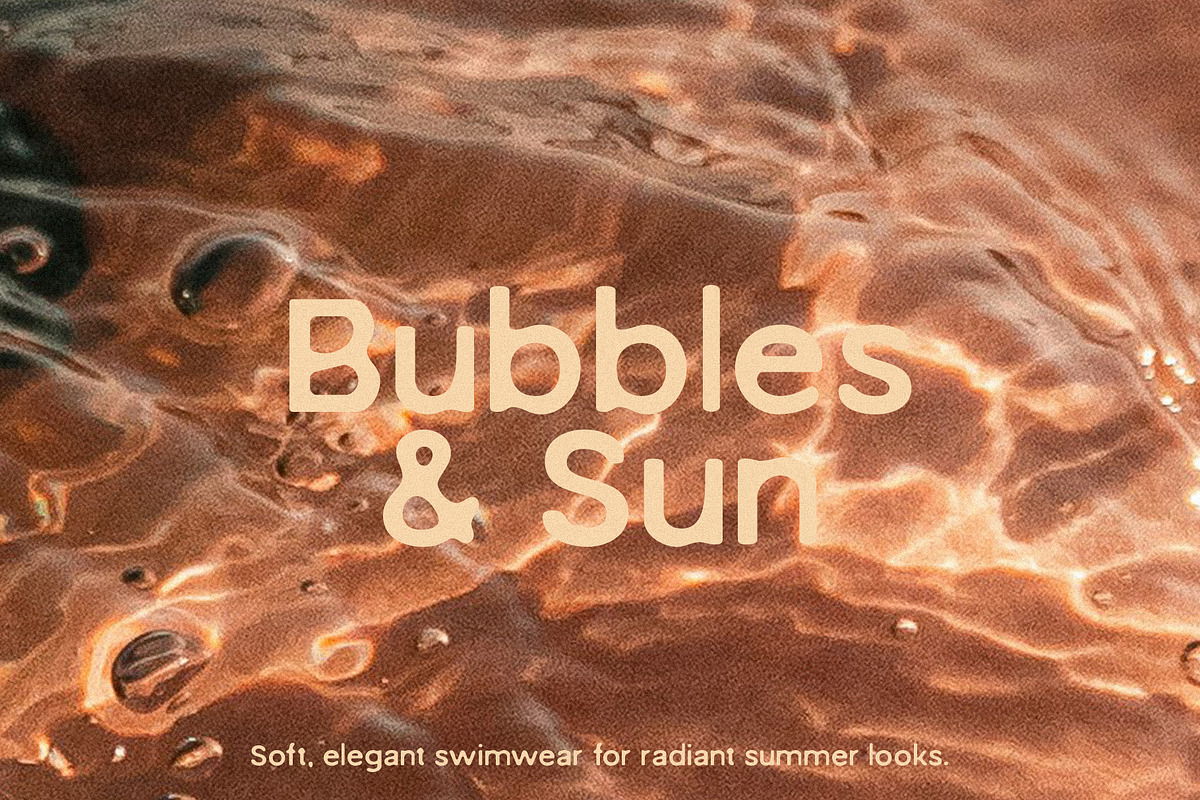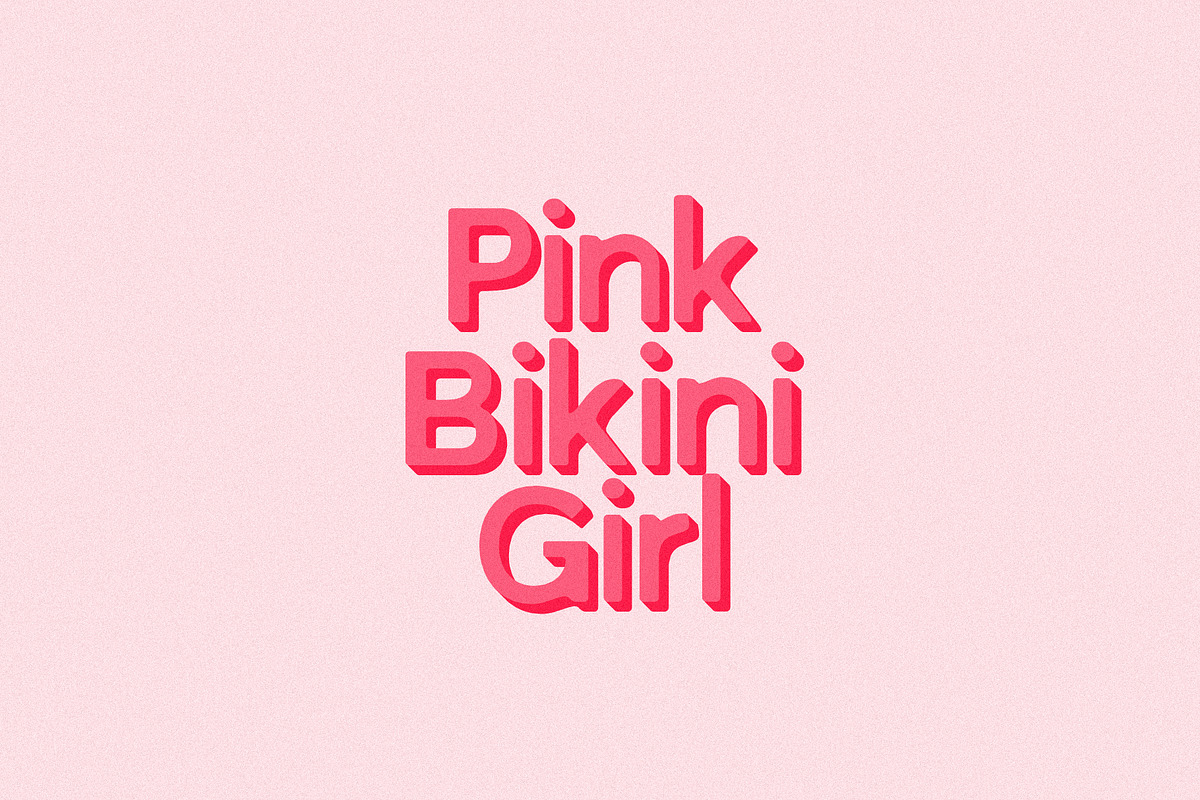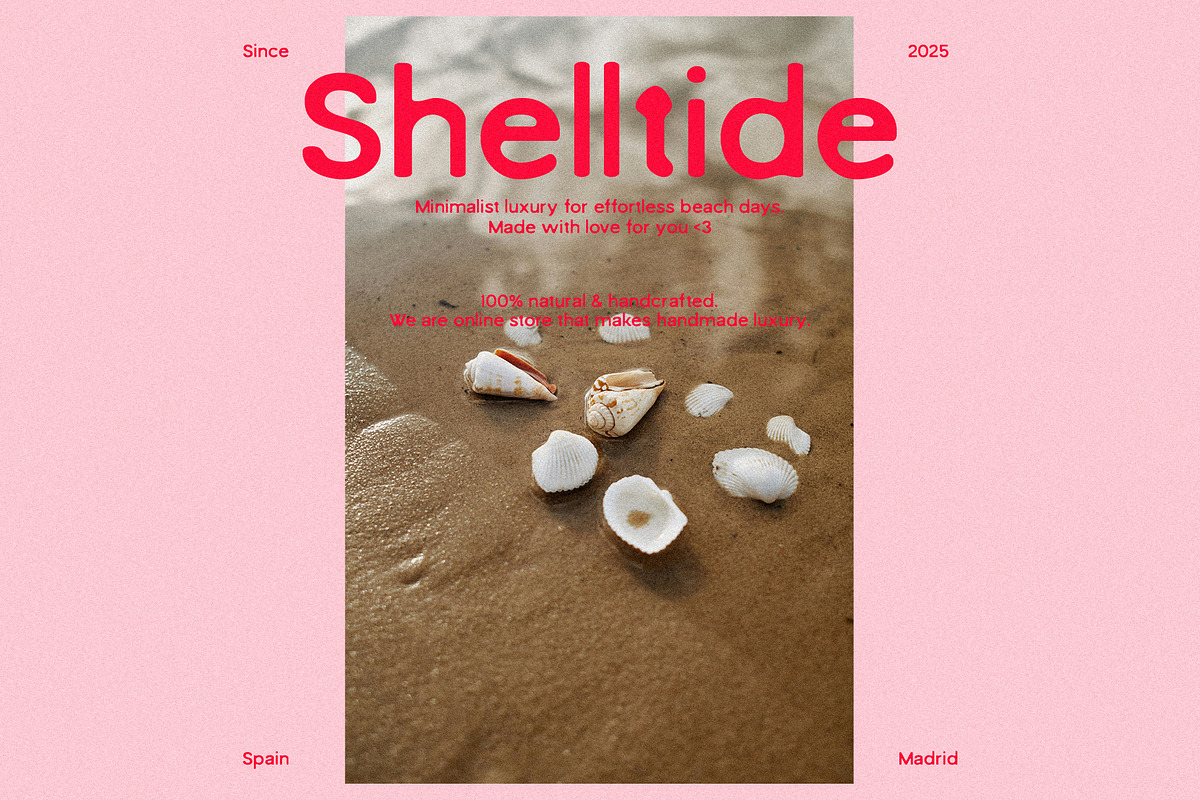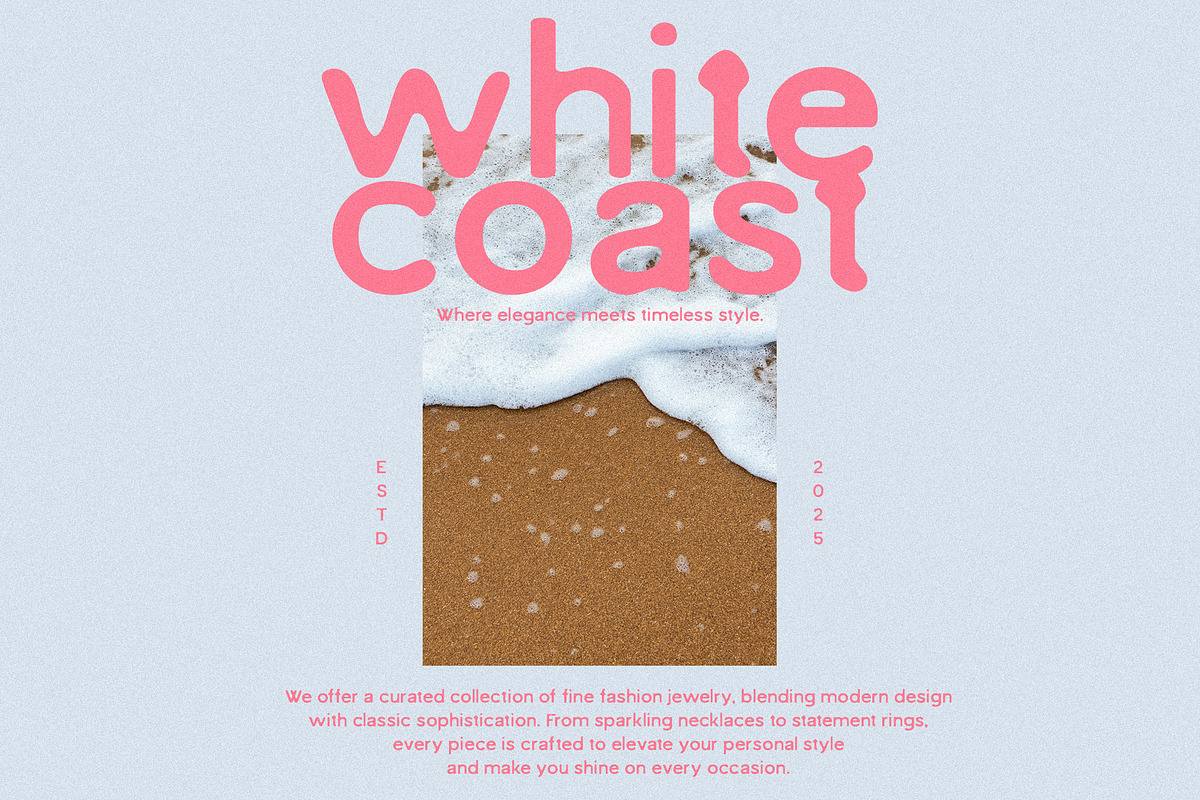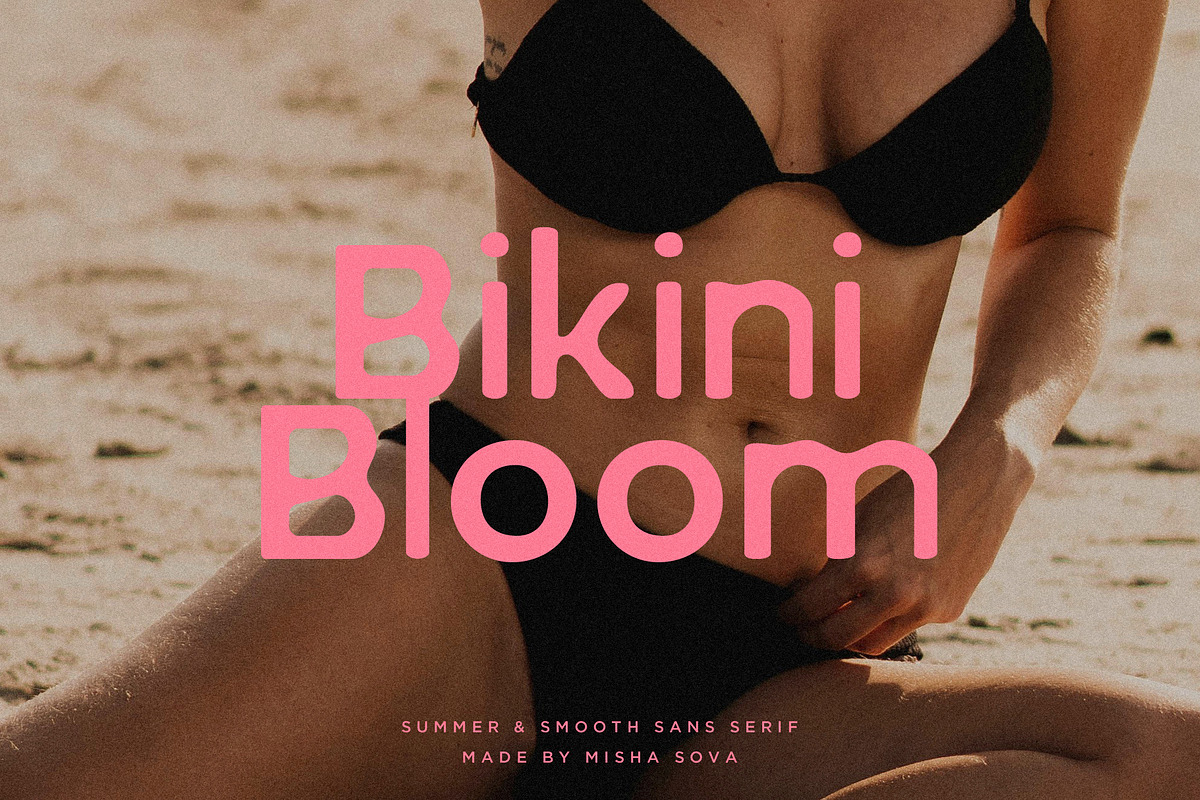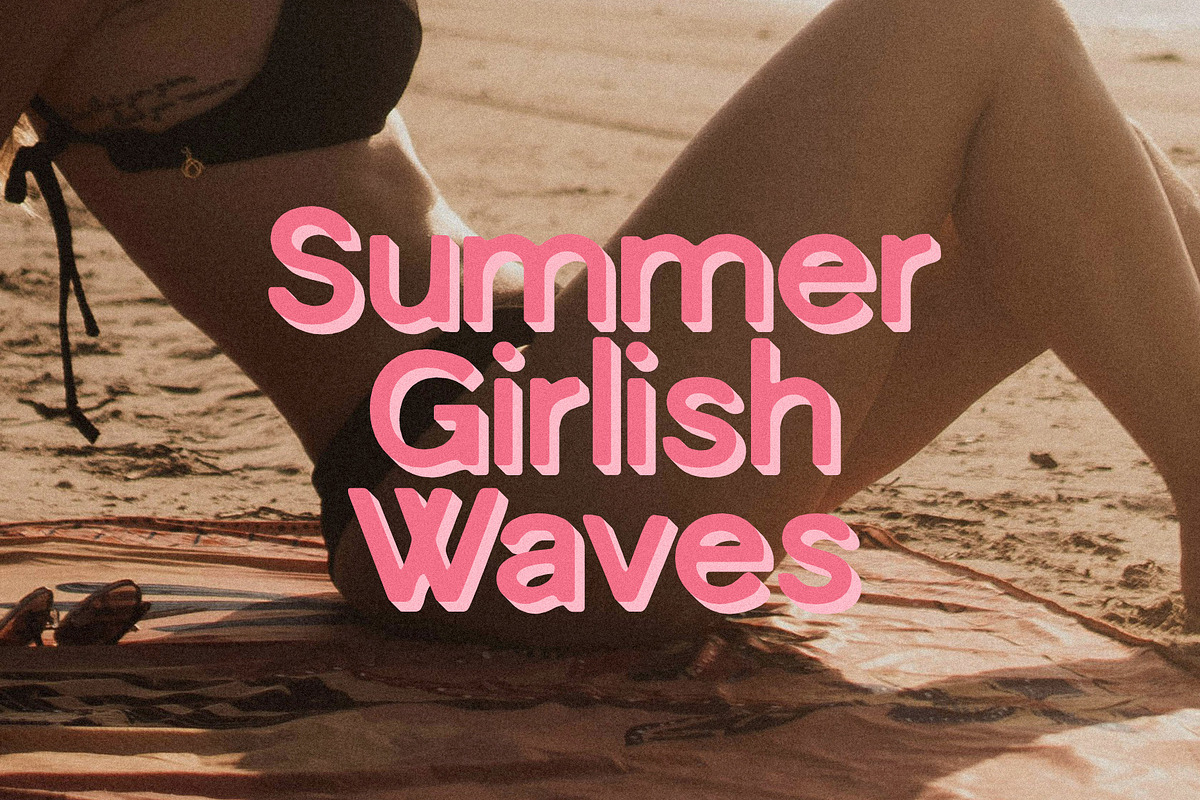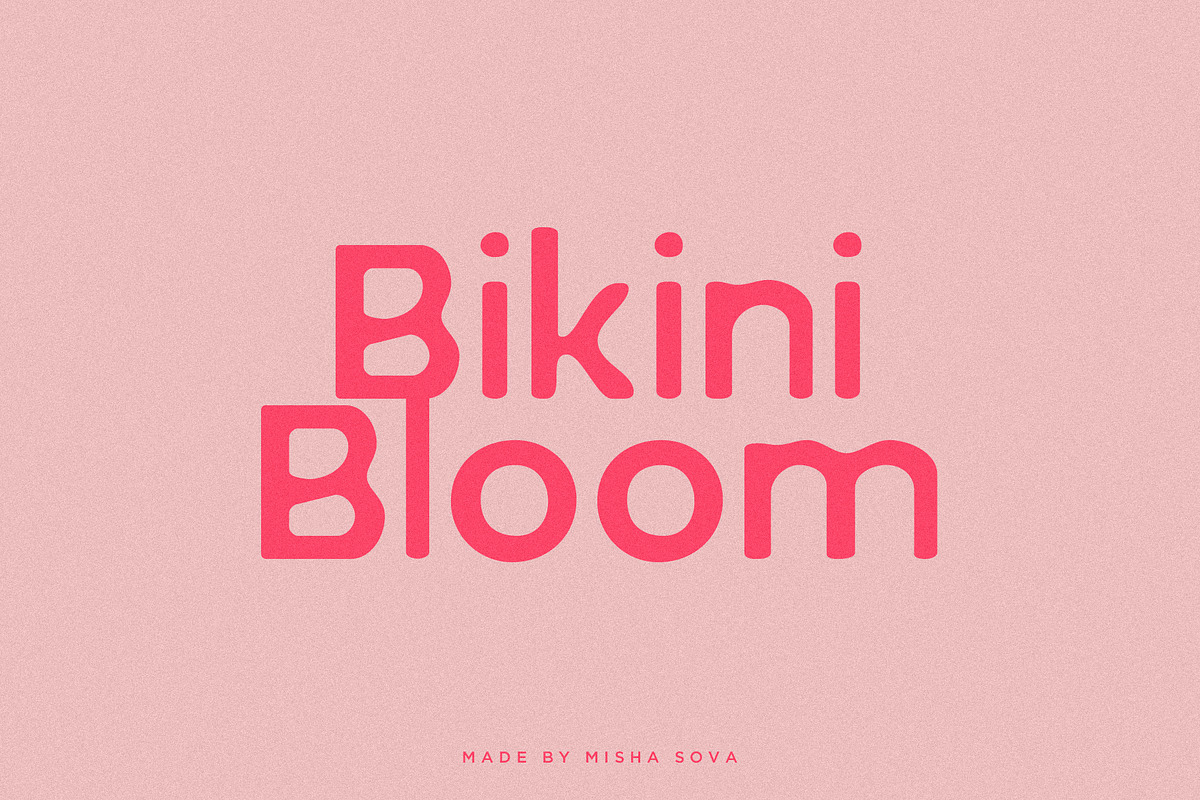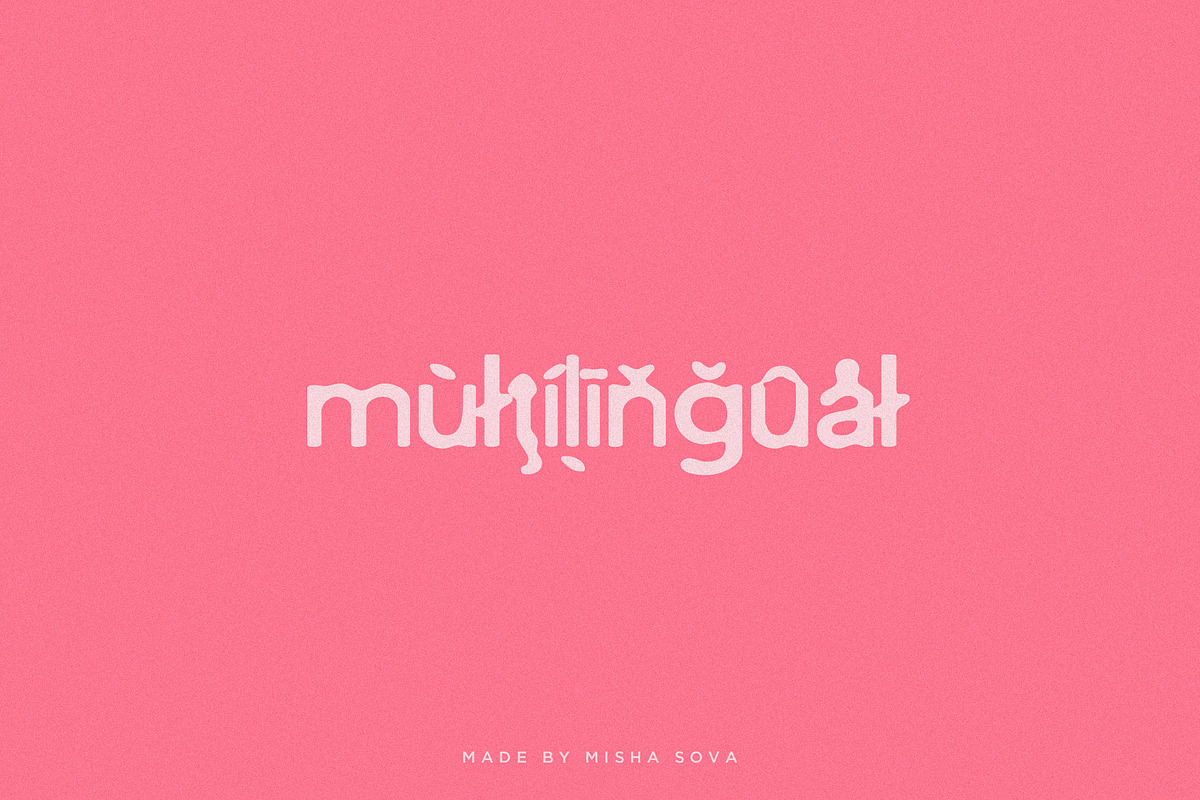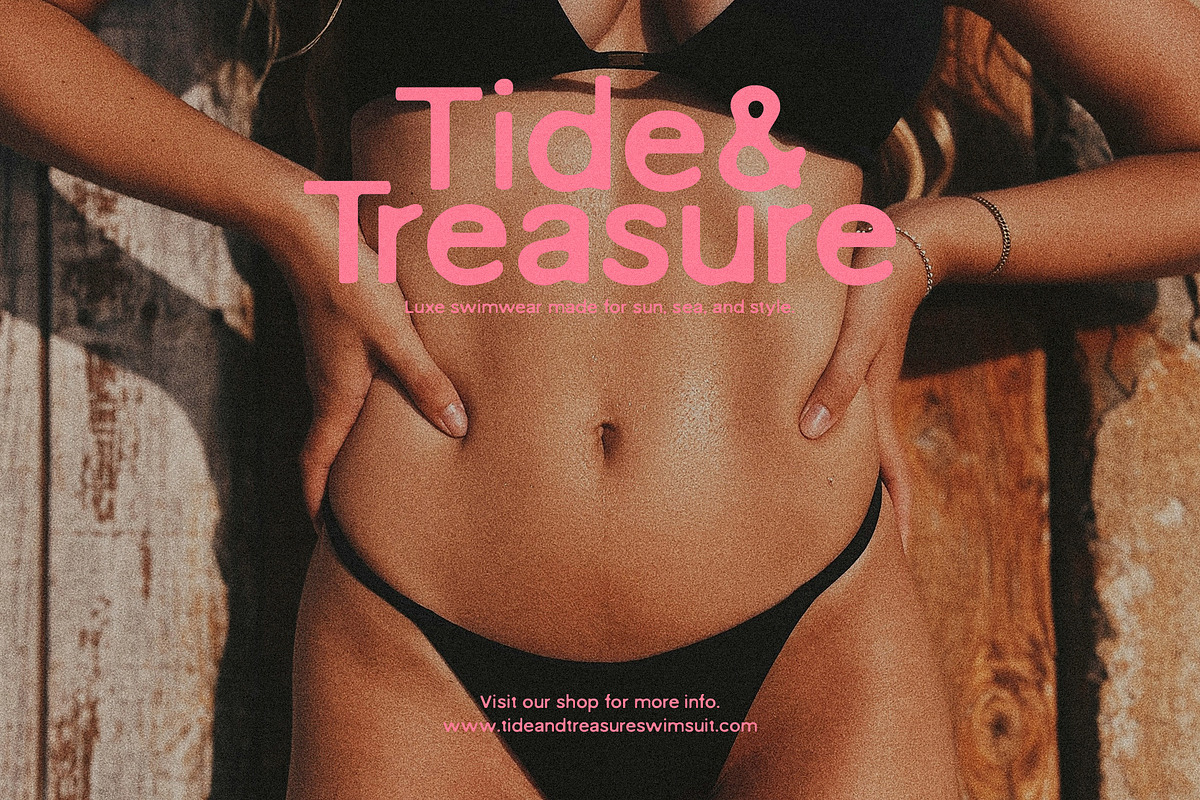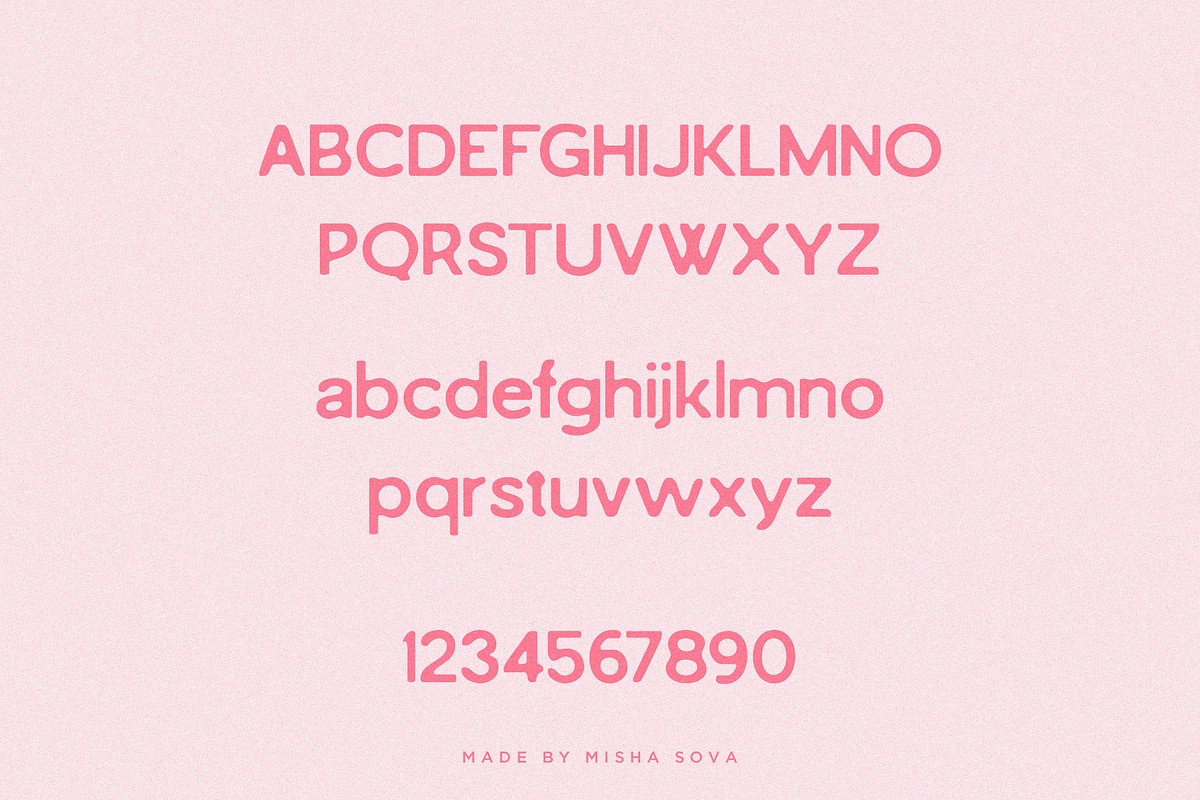
Bikini Bloom - Summer Sans
Bikini Bloom - Summer Sans by Misha Sova
Bikini Bloom - Summer Sans is a bold and flirty display font that brings sunshine, sass, and style to your designs. With its curvy letterforms and fun, carefree energy, this font is made for summer-loving creatives who want to make a statement. Think poolside cocktails, retro beach parties, and blooming florals — Bikini Bloom captures it all in every character.
Perfect for logos, swimwear branding, summer event posters, social media graphics, and vibrant packaging, this font adds a splash of personality wherever it goes. It’s confident, it’s fresh, and it’s totally ready for the spotlight.
Let your designs bloom with attitude — Bikini Bloom is here to turn up the heat.
Bikini Bloom features:
- Letters
- More than 300 glyphs